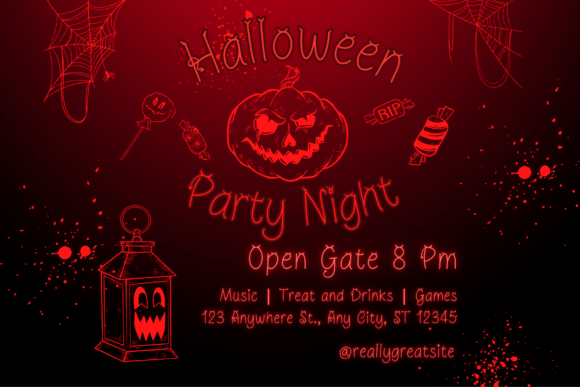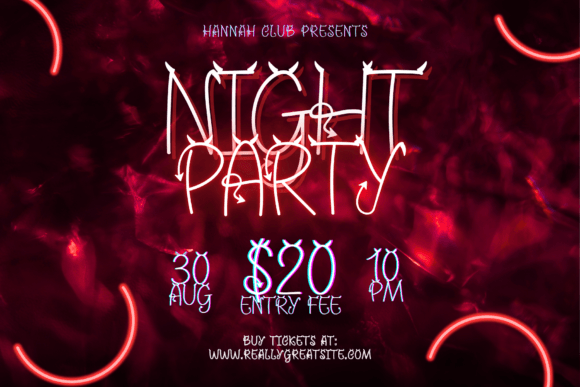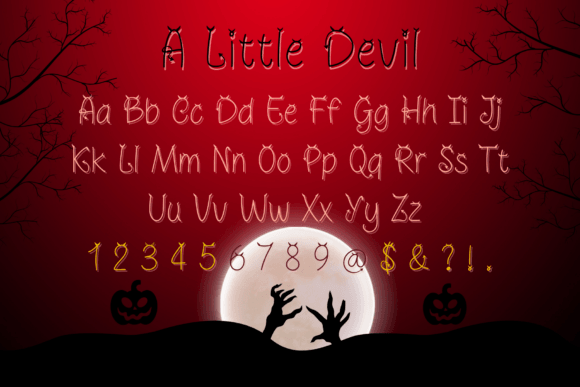
Introduction to A Little Devil Font
A Little Devil is an incredibly unique decorative font.
Masterfully designed to become a true favorite, this font has the potential to bring each of your creative ideas to the highest level .
Why Choose A Little Devil Font?
A Little Devil Font offers exceptional quality and versatility, making it a valuable addition to your design toolkit. Whether you’re creating for personal projects or commercial use, A Little Devil Font delivers professional results.